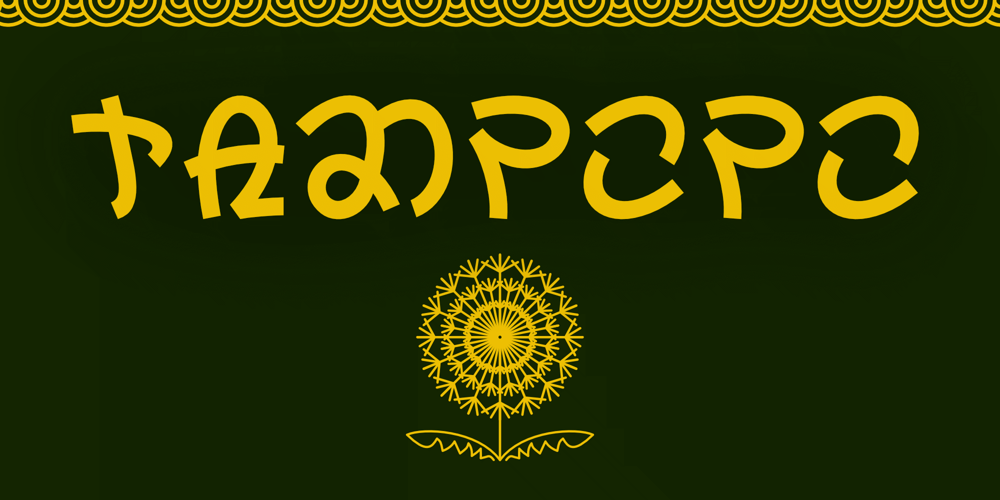
Tampopo Font Family was designed by Michael Kovacevich and published by MKGD. Tampopo contains 1 styles and family package options. Tampopo is another typeface that is derived from Japanese characters. In comparison to their Chinese and Korean counterparts, Japanese characters tend to be rather simplistic in their construction.Tampopo’s sans serifed appearance, along with its consistent strokes of equal thickness, is what forms the basis of this font’s aesthetics. It*s a Japanese looking typeface that possesses a basic and uncomplicated charm that allows it to communicates plainly and clearly.Tampopo has a glyph count of 388 and supports the following languagesAfrikaans • Albanian • Asu • Basque • Bemba • Bena • Bosnian • Catalan • Cebuano • Chiga • Colognian • Cornish • Corsican • Croatian • Czech • Danish • Embu • English • Esperanto • Estonian • Faroese • Filipino • Finnish • French • Friulian • Galician • German • Gusii • Hungarian • Icelandic • Ido • Indonesian • Interlingua • Interlingue • Irish • Italian • Javanese • Jju • Kabuverdianu • Kalaallisut • Kalenjin • Kamba • Kikuyu • Kinyarwanda • Kurdish • Latvian • Ligurian • Lithuanian • Lojban • Lombard • Low German • Lower Sorbian • Luo • Luxembourgish • Luyia • Machame • Makhuwa • Makhuwa-Meetto • Makonde • Malagasy • Malay • Maltese • Manx • Māori • Mauritian Creole • Meru • North Ndebele • Northern Sotho • Norwegian Bokmål • Norwegian Nynorsk • Nyanja • Nyankole • Occitan • Oromo • Polish • Portuguese • Rejang • Romanian • Romansh • Rombo • Rundi • Rwa • Samburu • Sango • Sangu • Sardinian • Scottish Gaelic • Sena • Shambala • Shona • Silesian • Slovak • Slovenian • Soga • Somali • South Ndebele • Southern Sotho • Spanish • Sundanese • Swahili • Swati • Swedish • Swiss German • Taita • Taroko • Teso • Tsonga • Tswana • Turkmen • Upper Sorbian • Vunjo • Walloon • Walser • Wolastoqey • Xhosa • Zhuang • Zulu